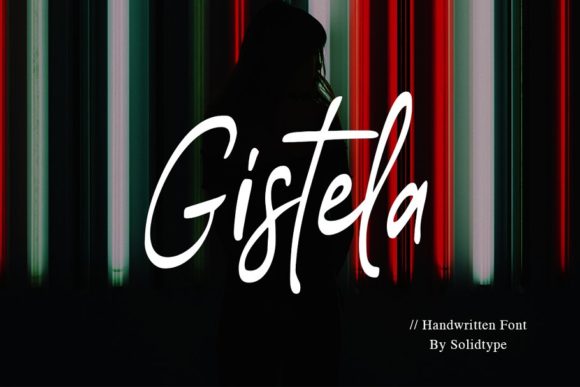
Immerse yourself in the enchanting world of Gistela, a script font that effortlessly blends elegance and charm. Its delicate curves and playful strokes ignite a sense of warmth and authenticity, evoking the beauty of handwritten notes penned with love. Gistela's allure lies in its ability to transport you to a simpler time, where every word carries a touch of intimacy and heartfelt emotion.
Indulge in the creative possibilities Gistela unlocks. Its versatility enables you to craft stunning logos, eye-catching social media graphics, and captivating invitations that leave a lasting impression. Gistela's alluring style shines through in wedding stationery, adding a touch of timeless romance to your special day. With Gistela as your creative companion, you'll find endless opportunities to express your individuality and charm your audience.
Unleash your inner artist and embark on a journey of creative exploration with Gistela. Let its graceful strokes inspire you to create designs that captivate and enchant. Whether you're a seasoned designer or just starting your creative adventure, Gistela will guide you effortlessly, enhancing your projects with a touch of magic. Experience the joy of crafting designs that resonate with your audience, leaving them utterly captivated by your unique style.
Step into the realm of Gistela, where creativity flourishes, and dreams take form. Discover the boundless possibilities that await you with this enchanting script font. Let Gistela be your muse, guiding you to create designs that touch hearts and leave an indelible mark on the world. Embrace the beauty of handwritten charm and authenticity, and elevate your creative vision to new heights with Gistela.